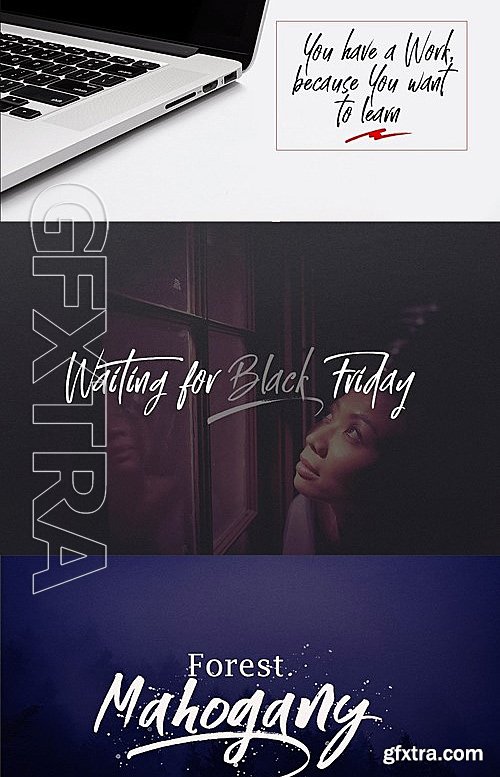
Just Mother are three sets of fonts, it is that the fonts brush that has a different style. This is the perfect choice for personal branding project. Can be used for various purposes.such as headings, logos, wedding invitations, t-shirts, letterhead, lable, news, posters, badges etc. To enable the OpenType Stylistic alternates, you need a program that supports OpenType features such as Adobe Illustrator CS, Adobe Indesign and CorelDraw X6-X7.